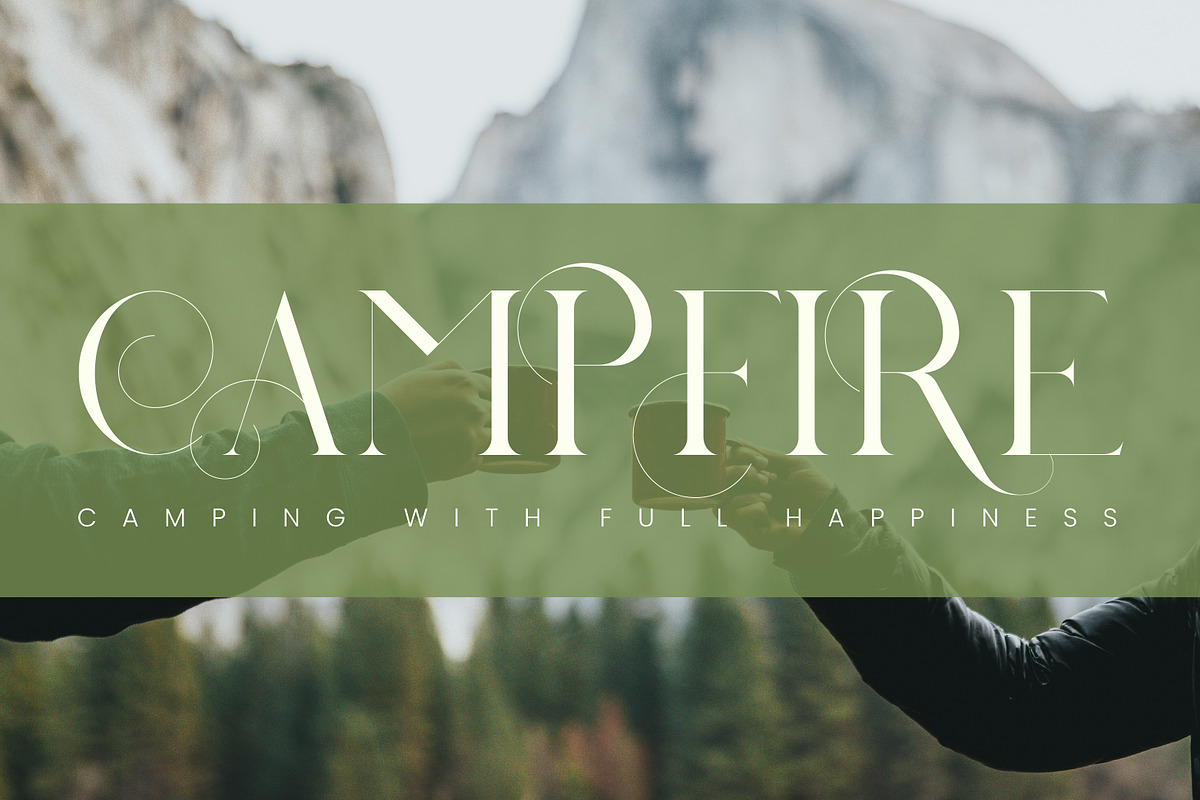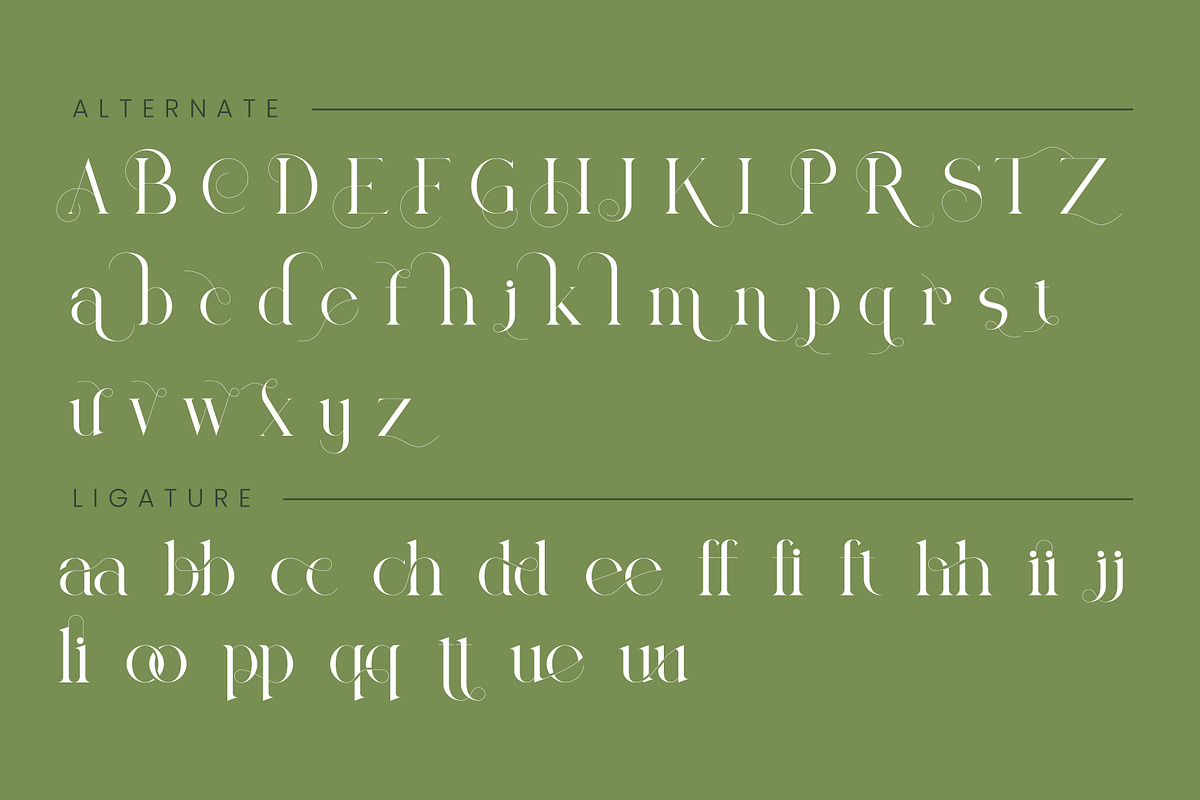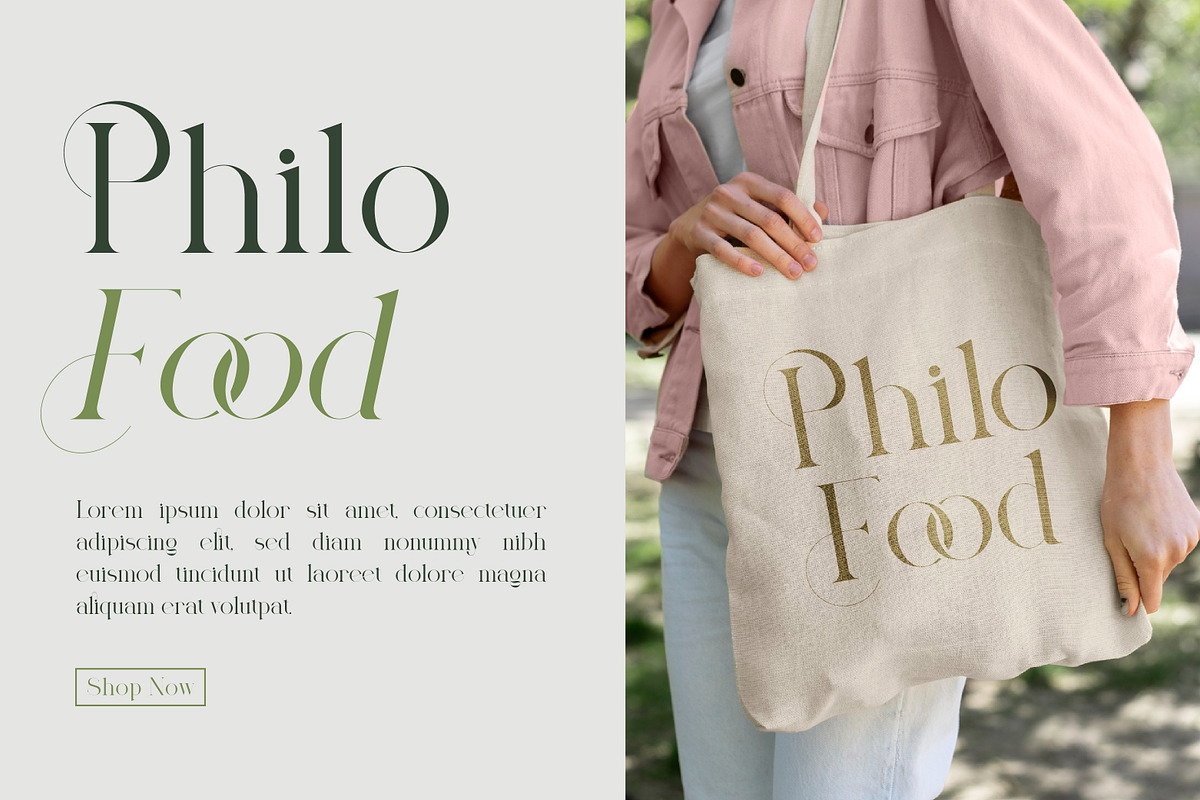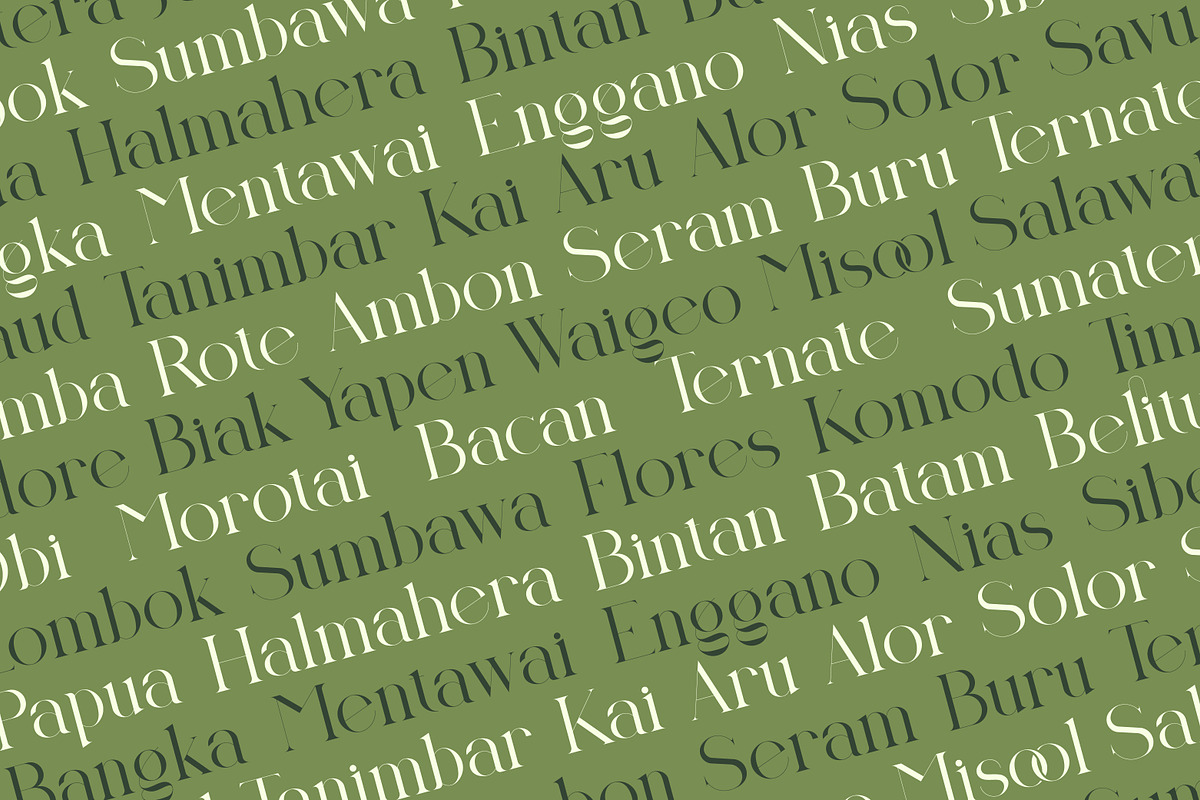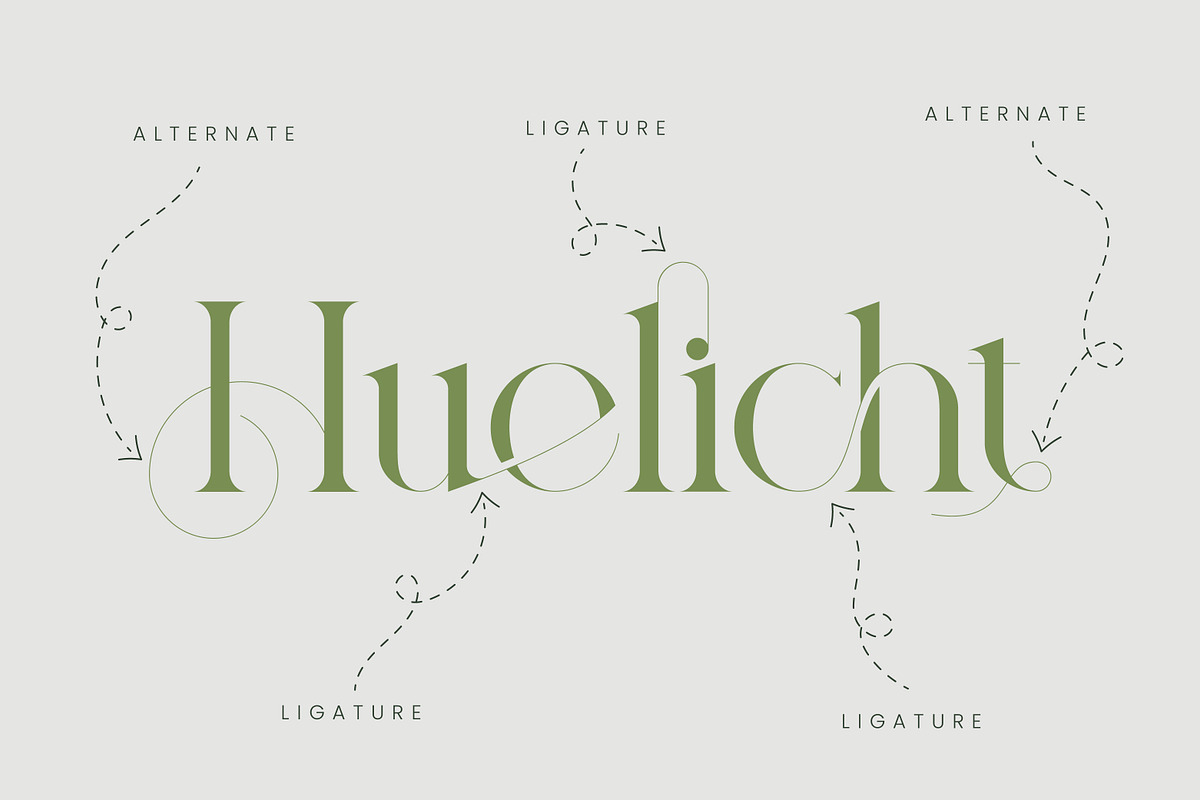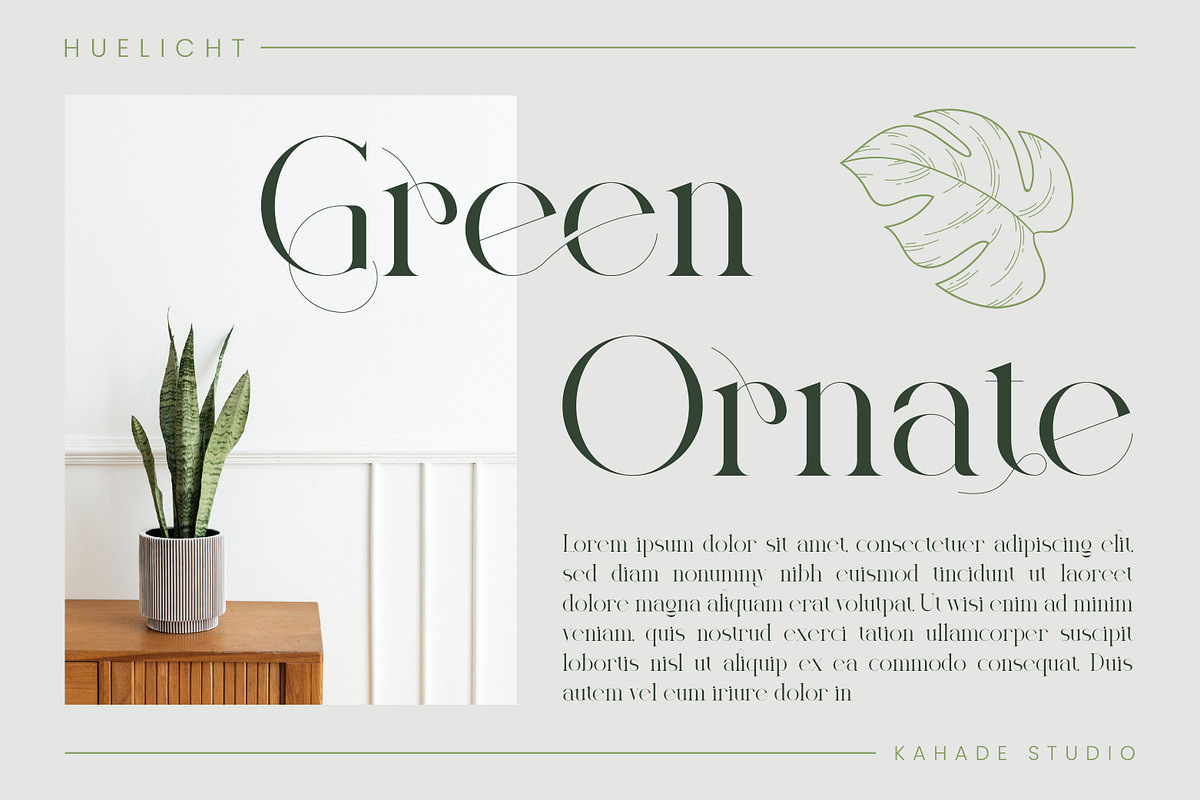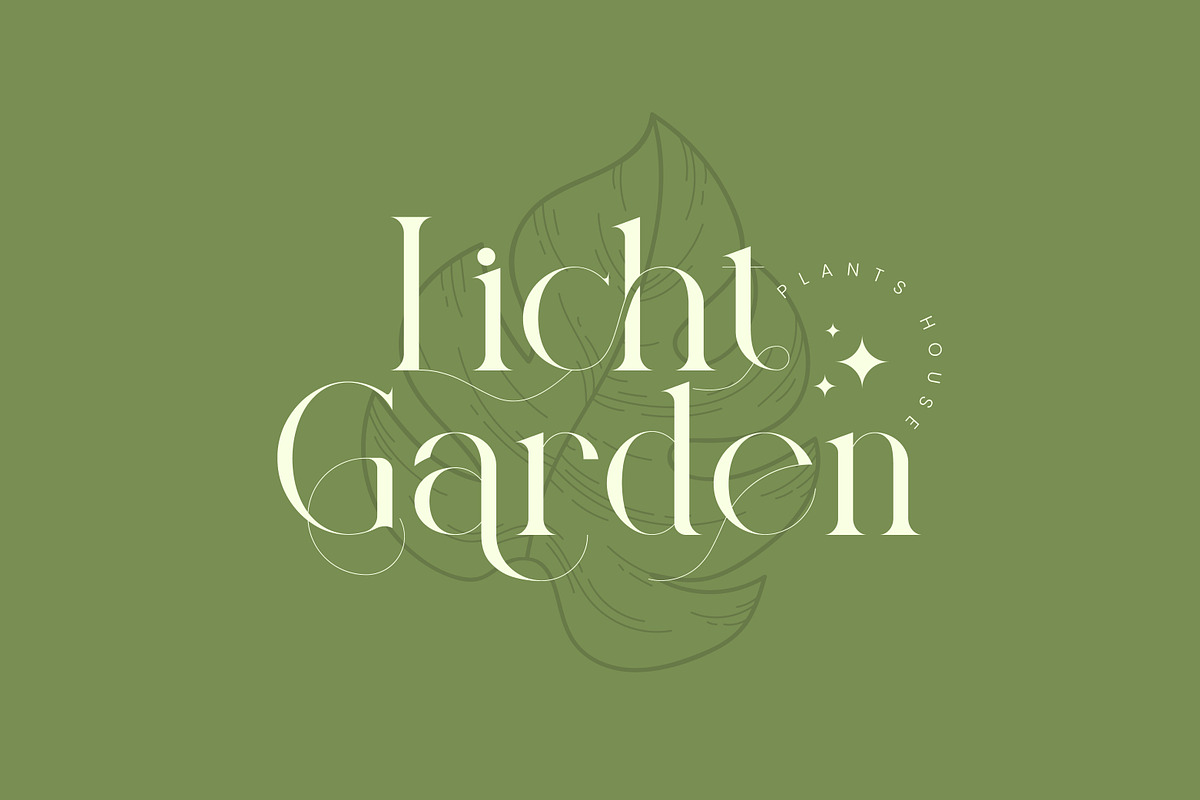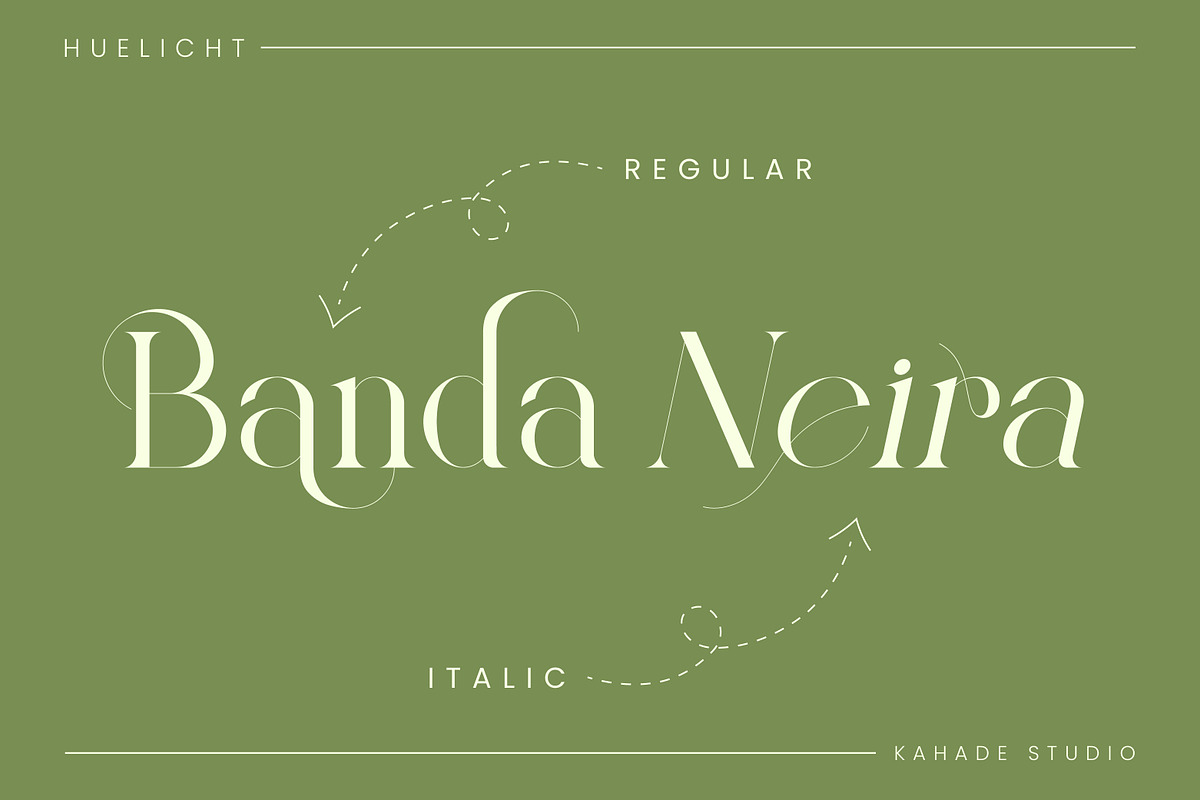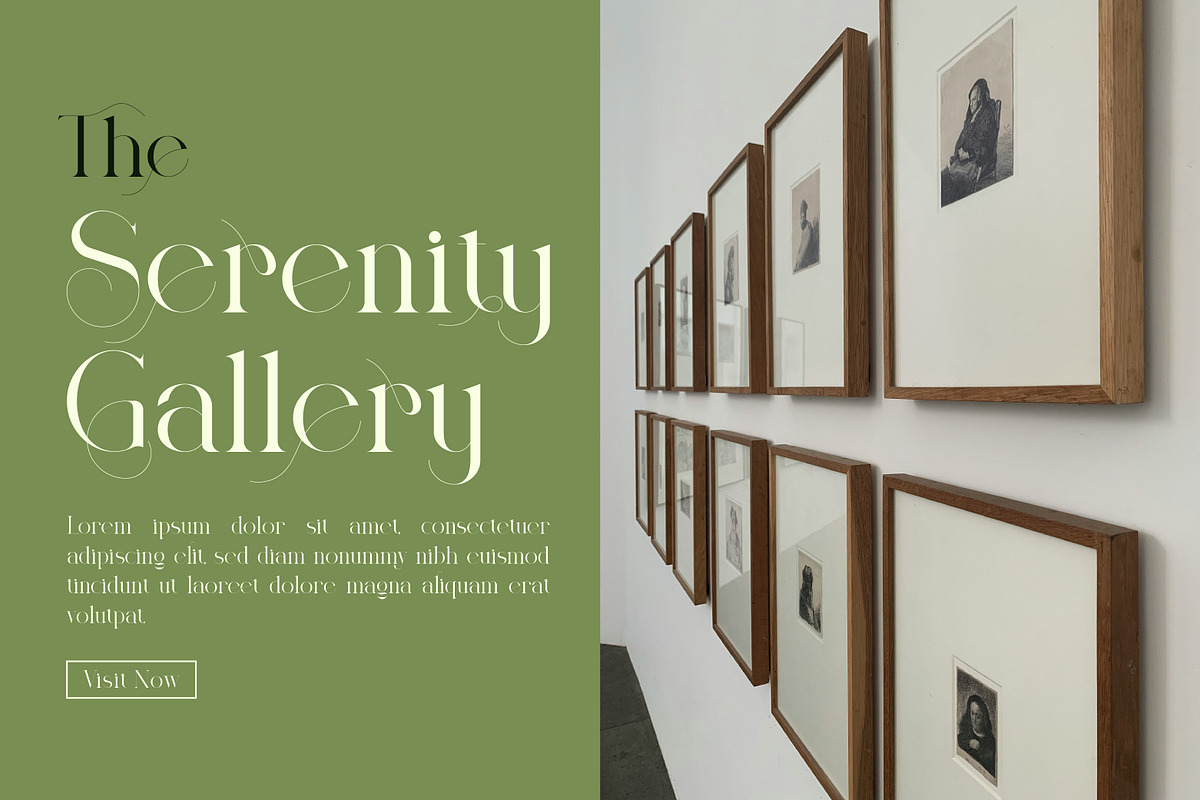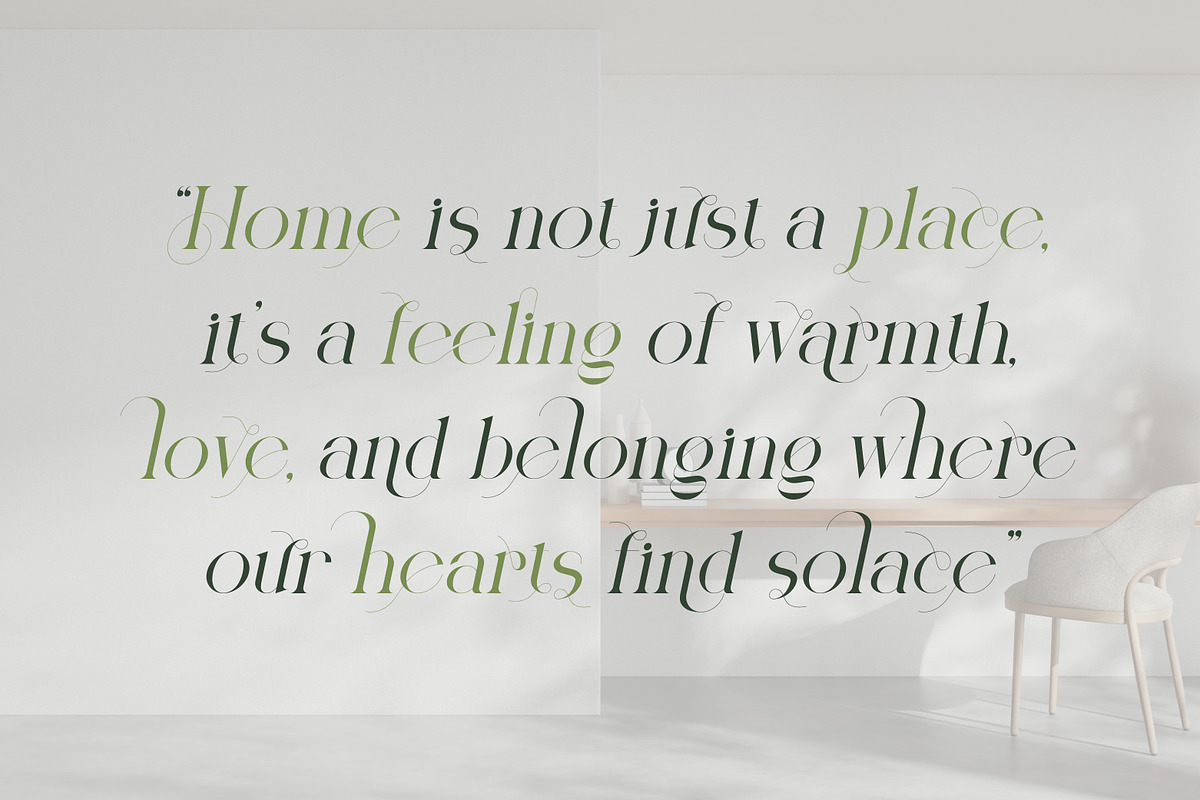
Huelicht | Modern Serif Font
Huelicht – Modern Elegant Serif Font. This font has a modern, minimalist, and elegant character. Suitable for your various special project needs.
- Uppercase Character
- Lowercase Character
- Number & Punctuation
- Stylistic Alternate & Ligature